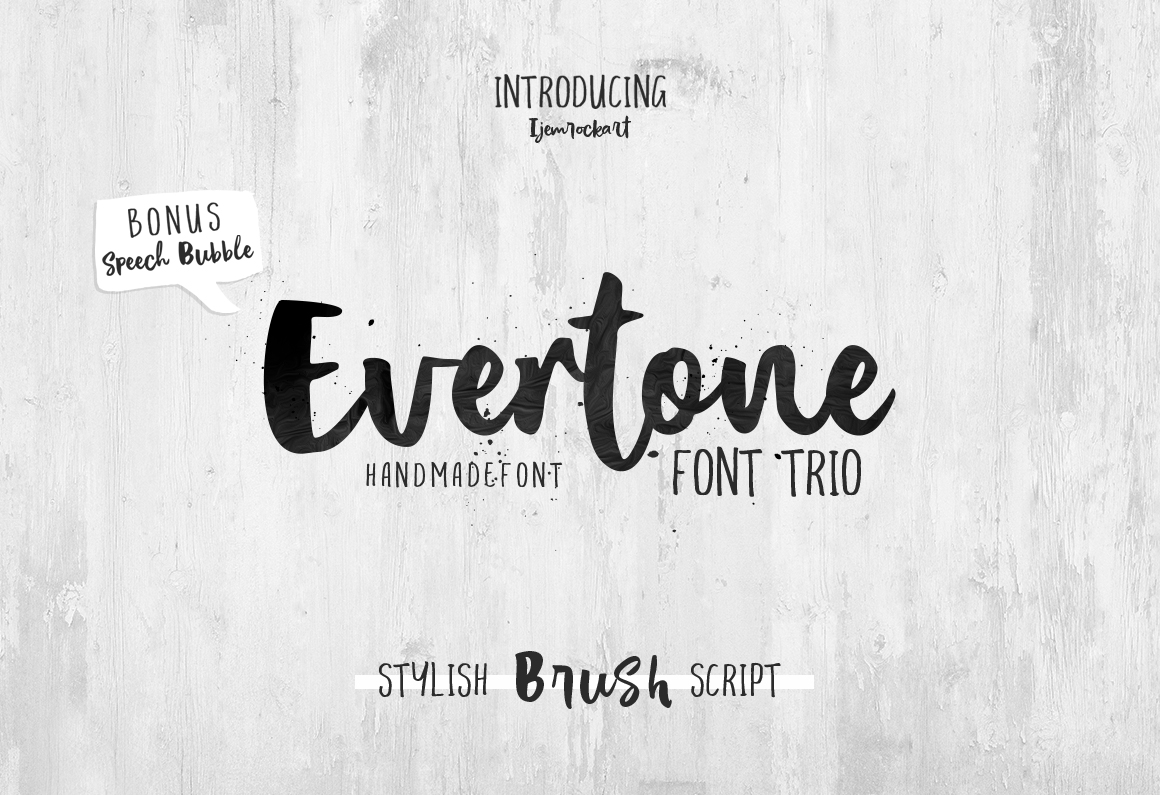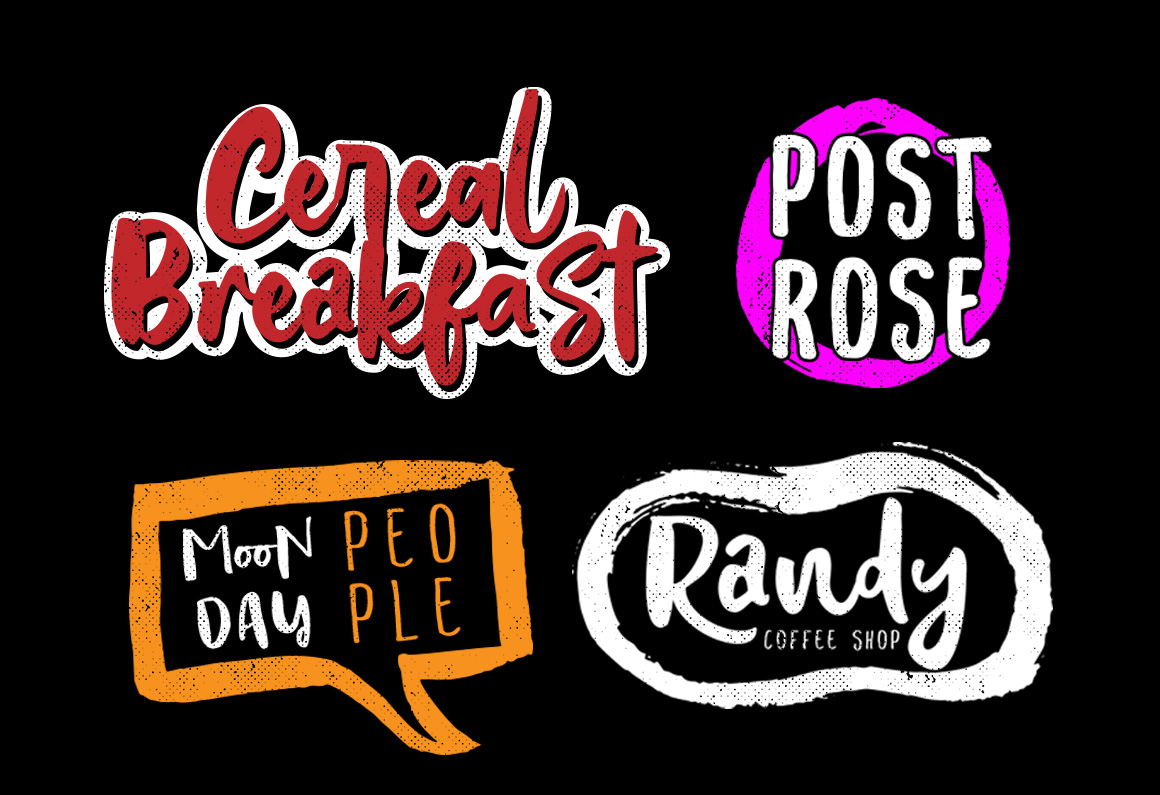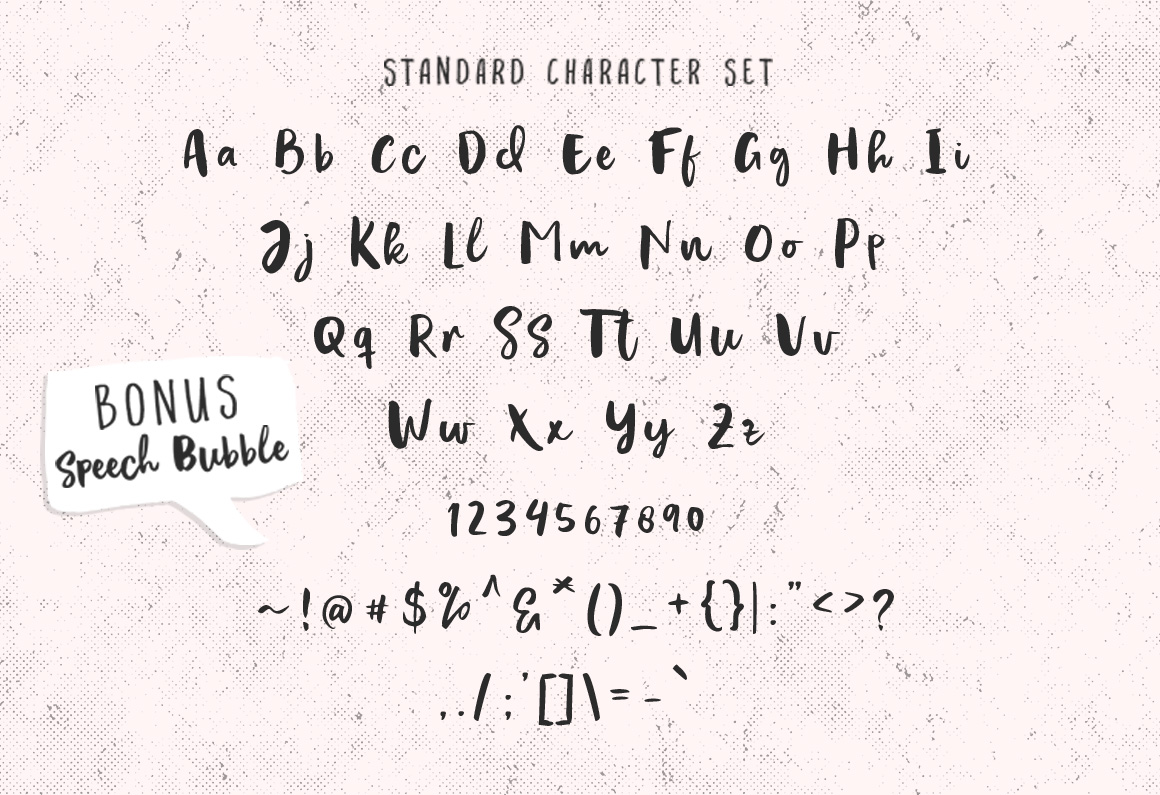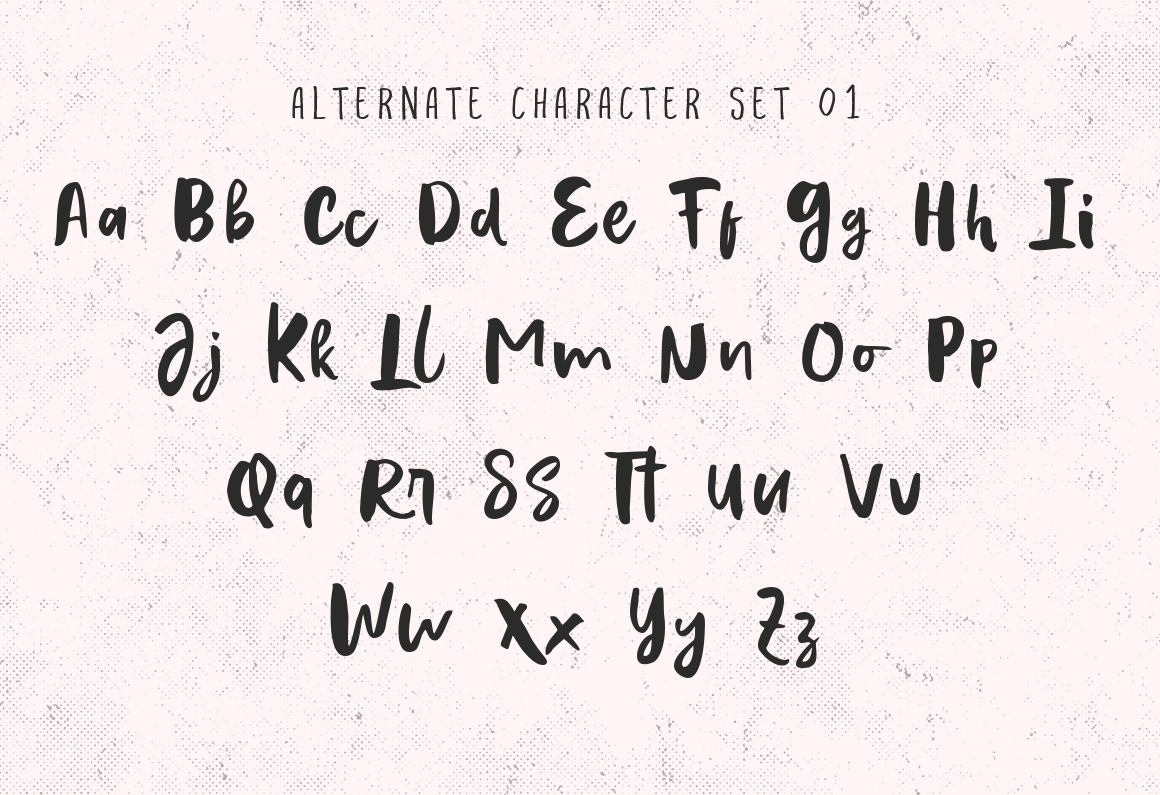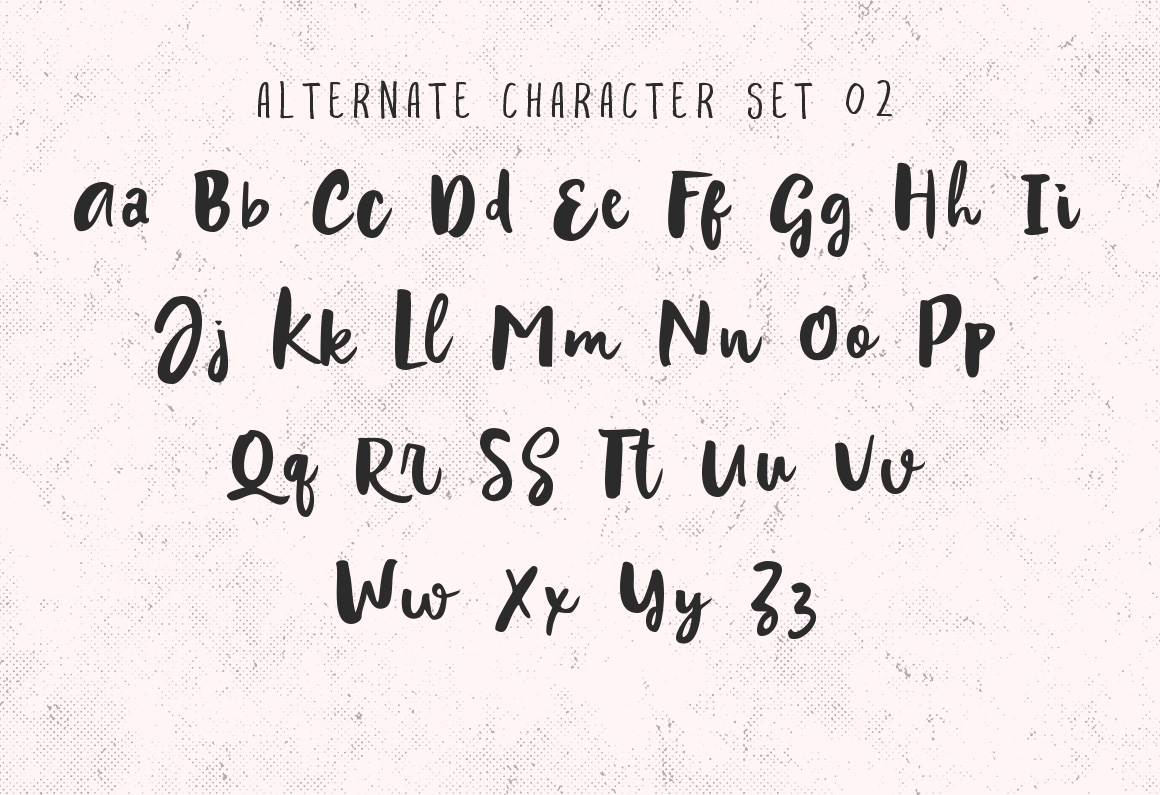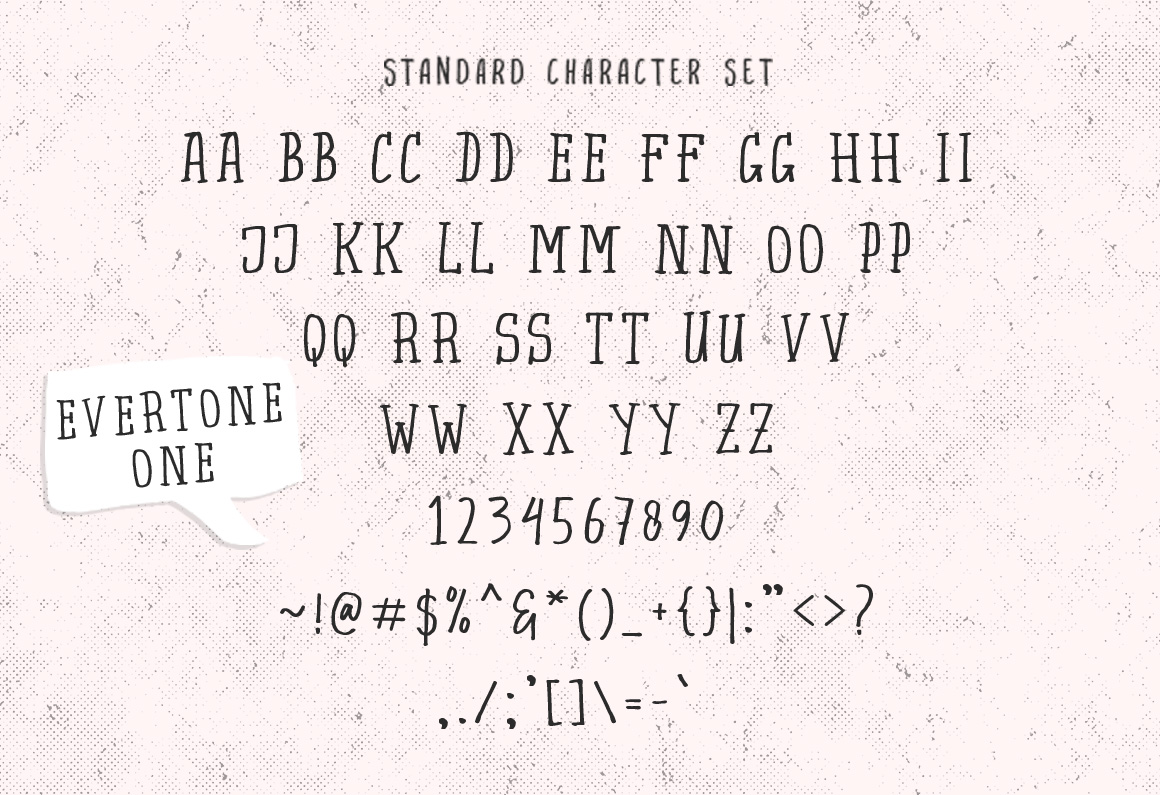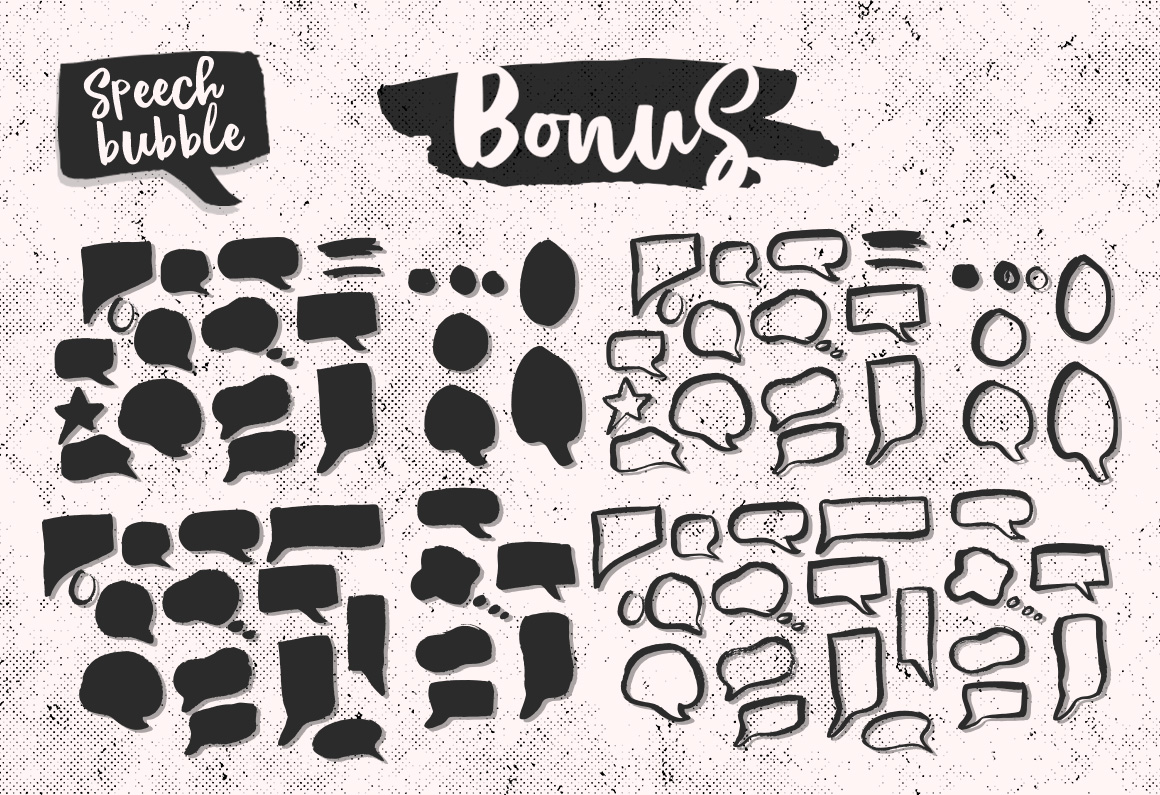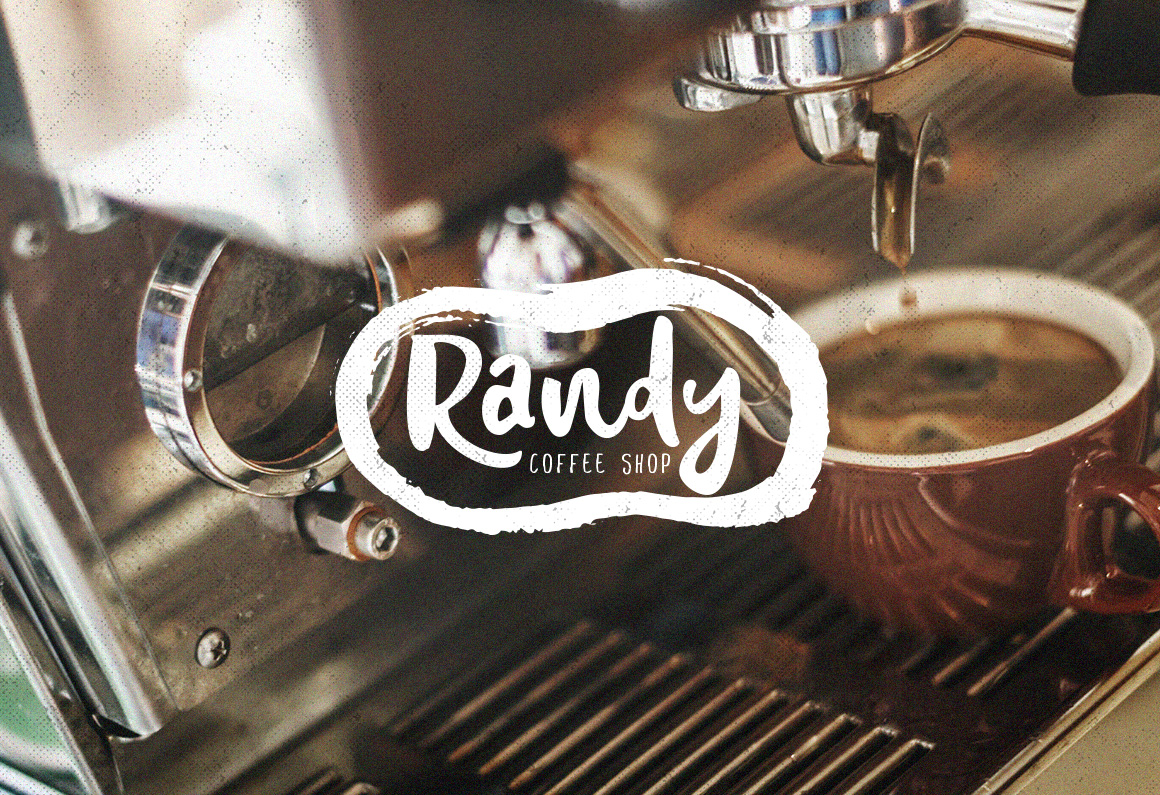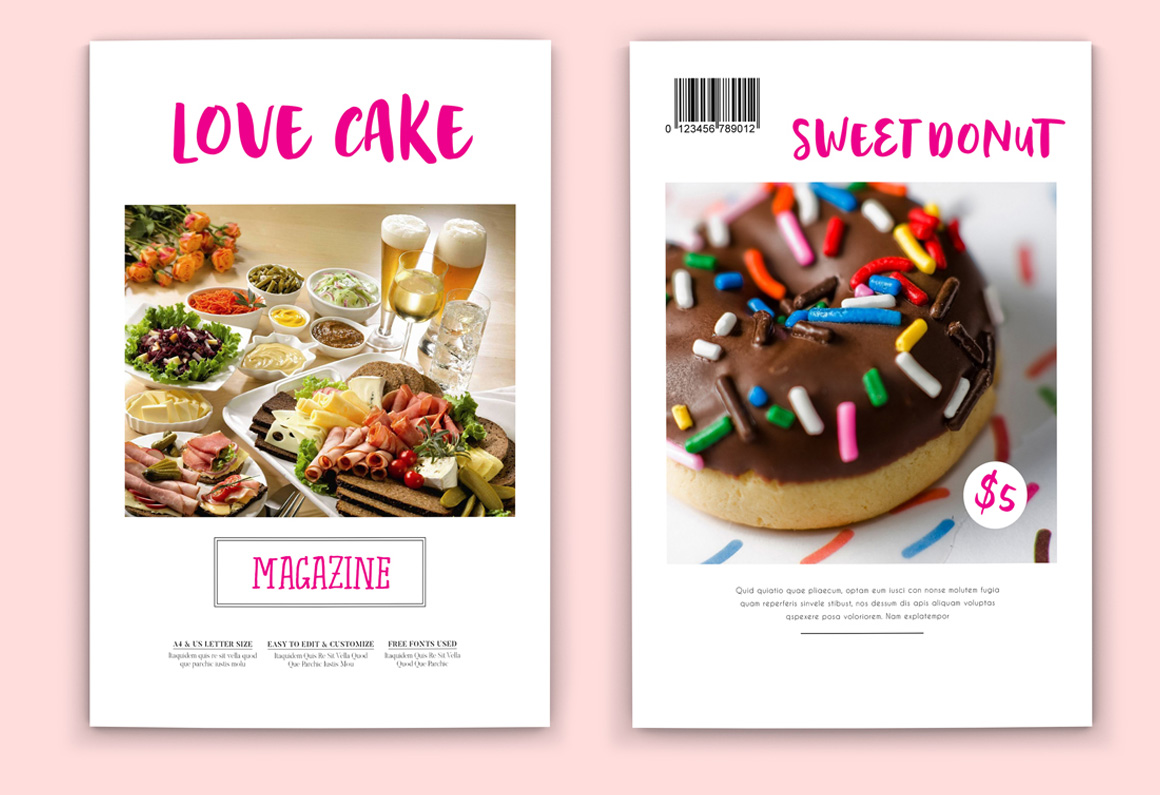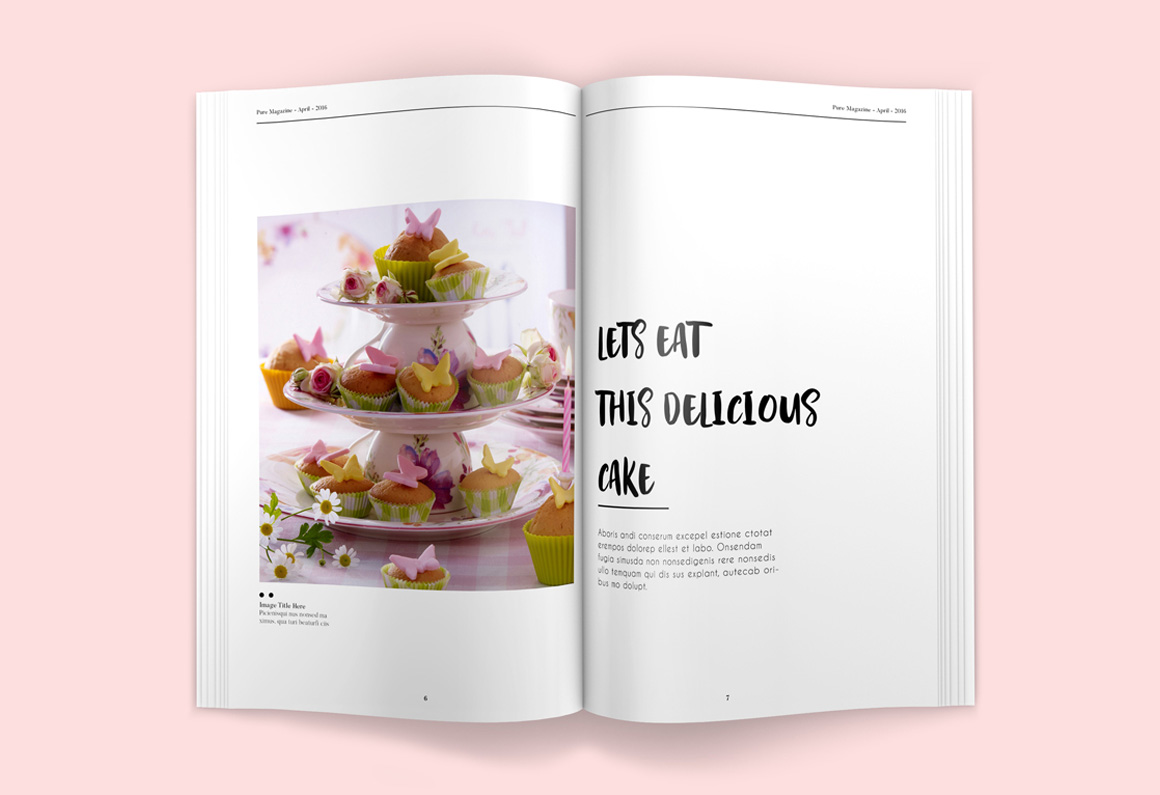
Evertone Font
About Evertone Font
Evertone is a beautiful handlettered font, perfect for use in romantic and femininely oriented projects. This font has an authentic feel and embraces its bold imperfections, and works well in both digital and print designs.